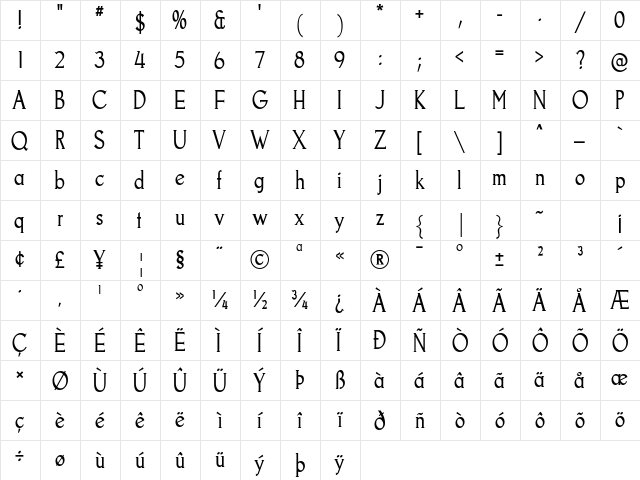
Goodfish Regular
Design Context for Goodfish Typeface
Goodfish offers clean, dependable letterforms without strong stylistic allegiance, making it a practical choice for designers who need flexibility.
Pro Tip: Use Goodfish in both headline and body roles to test its range before committing to a single application.